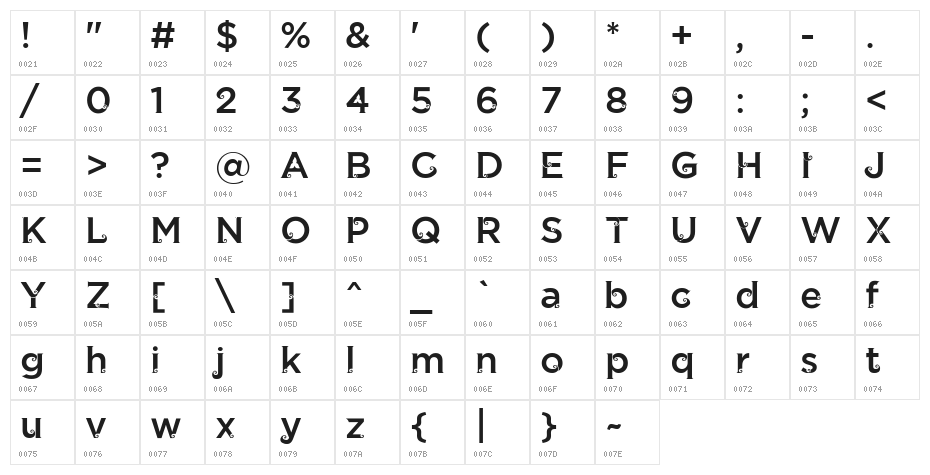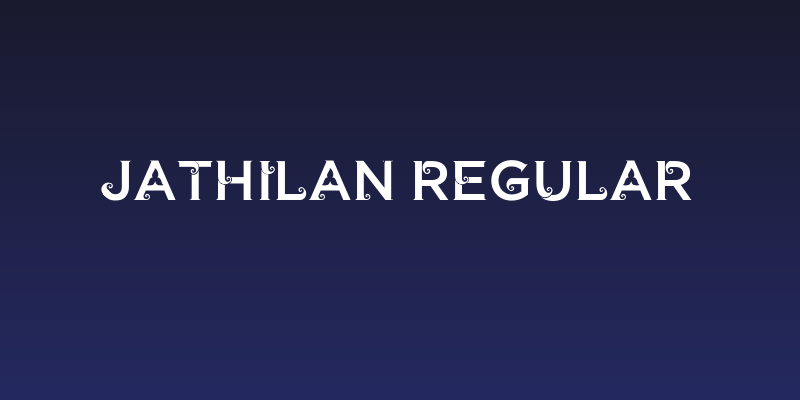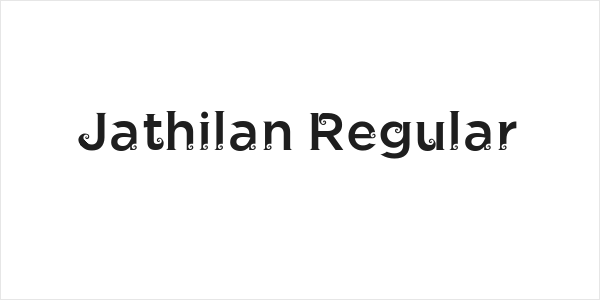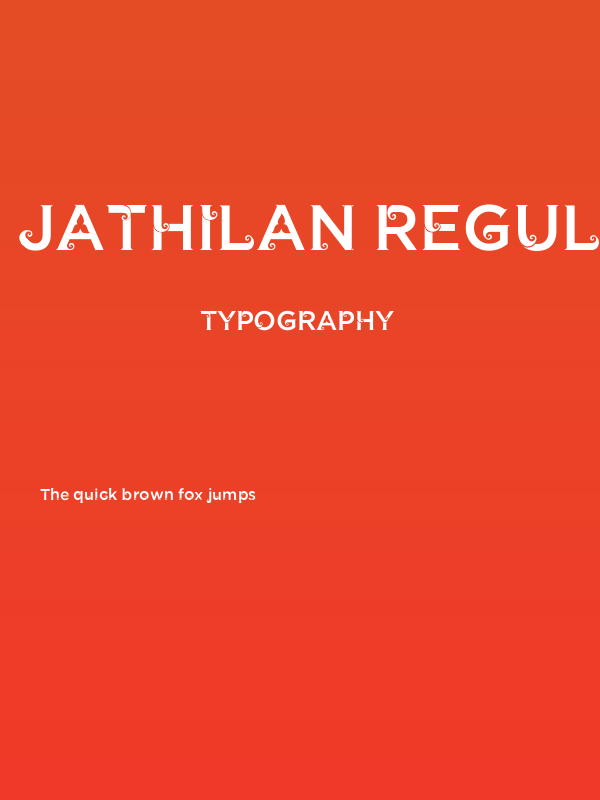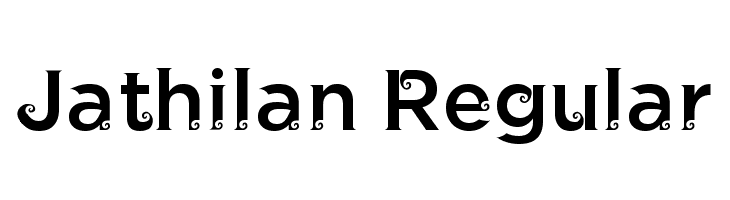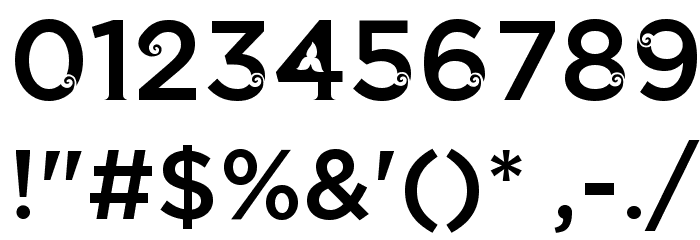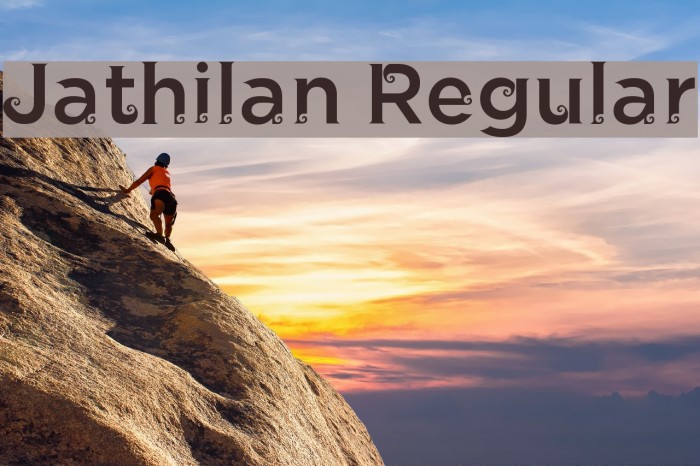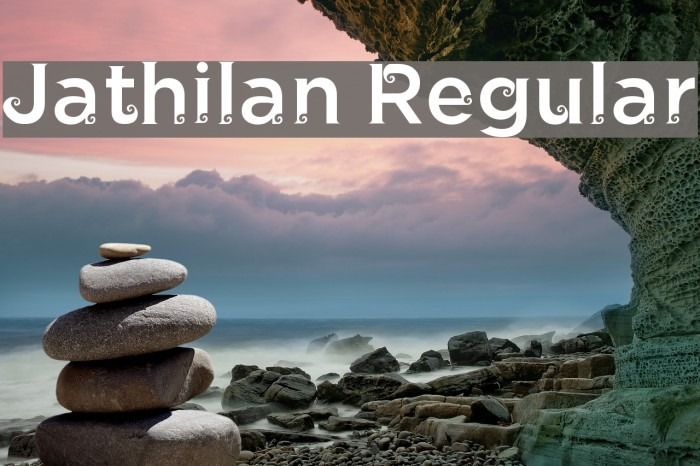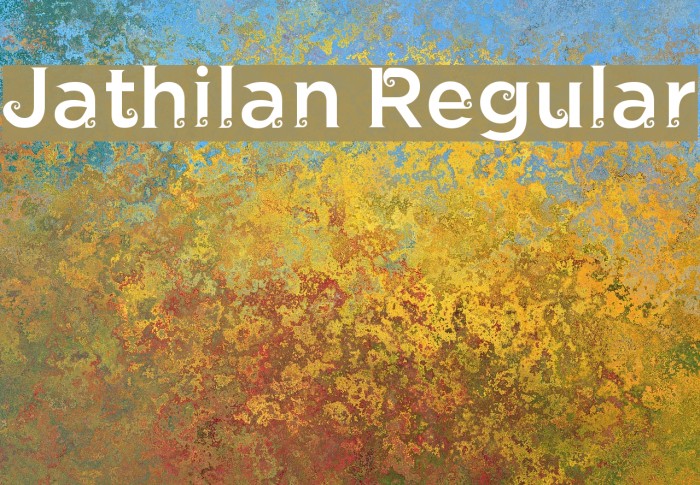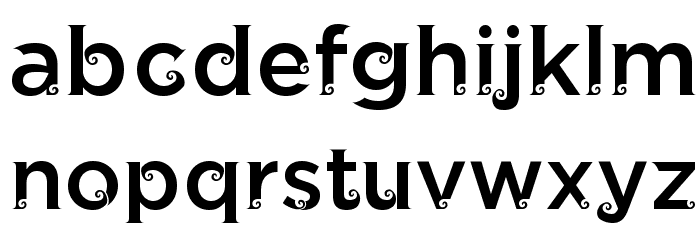
Jathilan Regular Font
Jathilan Regular Description
This font features a unique blend of traditional serif elements with decorative swirls at the ends of certain strokes, giving it a whimsical and artistic flair. The uppercase letters are bold and prominent, while the lowercase letters maintain a consistent style with slightly less emphasis. Numbers and special characters follow the same design principles, ensuring a cohesive look across all text. The font's distinct style makes it stand out, with each character having a playful yet elegant appearance. The overall design is both eye-catching and sophisticated, making it suitable for creative projects that require a touch of personality.
| Proposed Projects | Ideal for invitations, posters, branding, and any project that benefits from a decorative and artistic touch. |